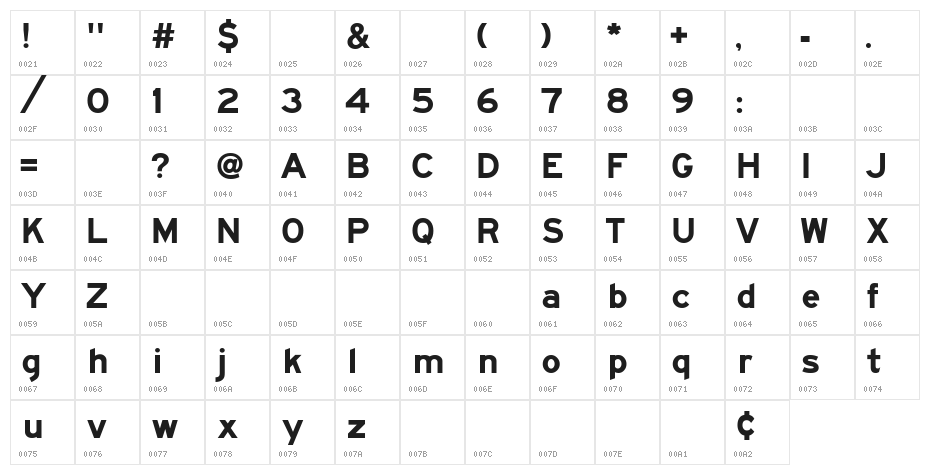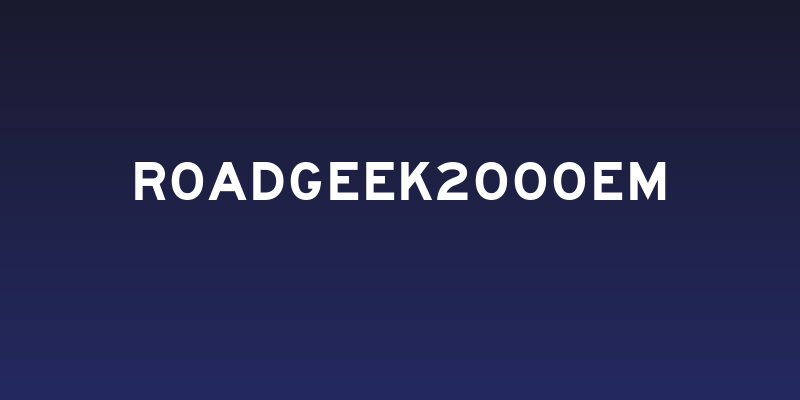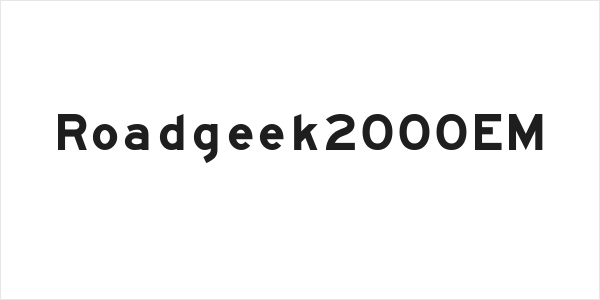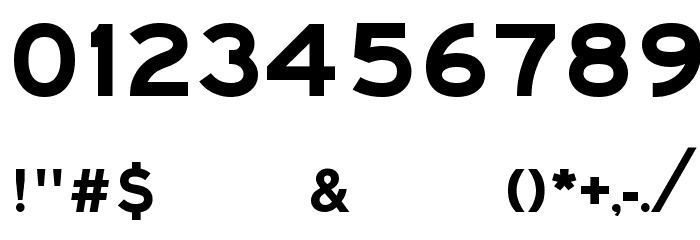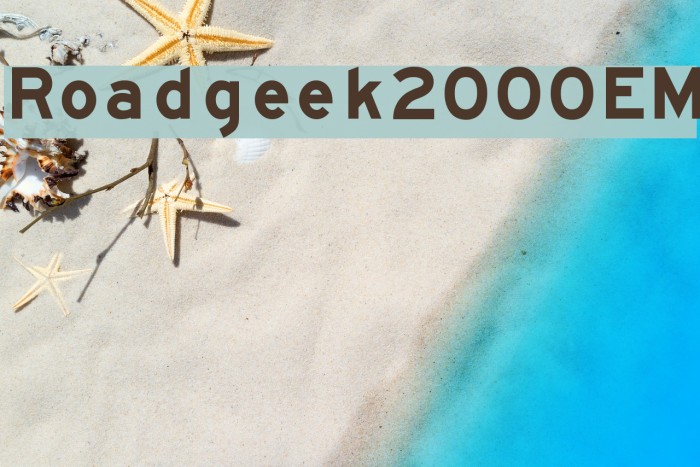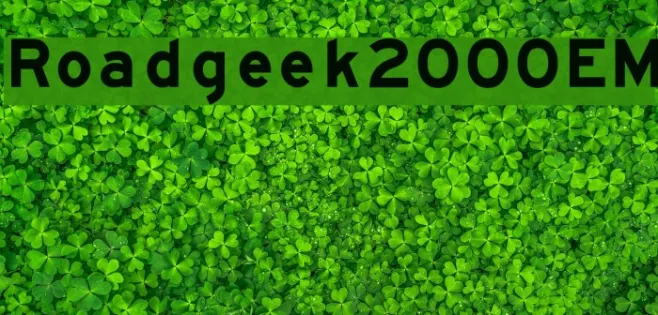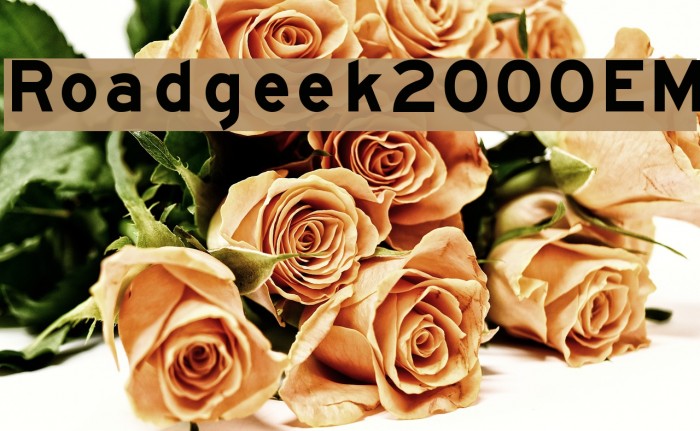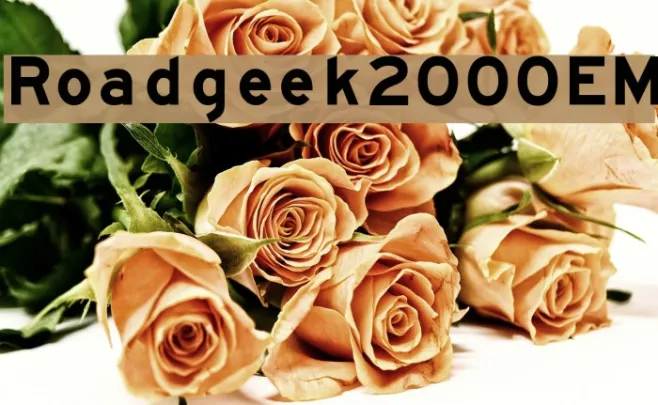
Roadgeek2000EM Font
Roadgeek2000EM Description
This font features a bold and clean sans-serif style, characterized by its strong geometric shapes and uniform stroke widths. The uppercase letters are robust and straightforward, providing excellent readability. The lowercase letters maintain a consistent style, with rounded edges that soften the overall appearance. Numbers are clear and distinct, ensuring legibility in various contexts. Special characters are well-defined, complementing the overall design. This font is versatile, suitable for both digital and print media, and can be used effectively in signage, headings, and branding materials.
| Use Case | Headlines, Signage, Branding |
| Proposed Projects | Ideal for road signage, branding, headlines, and digital interfaces. |